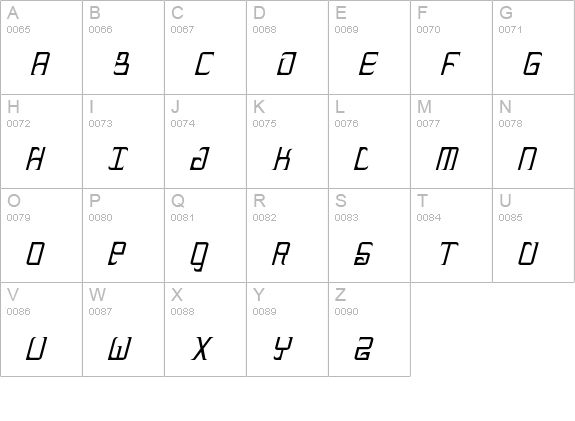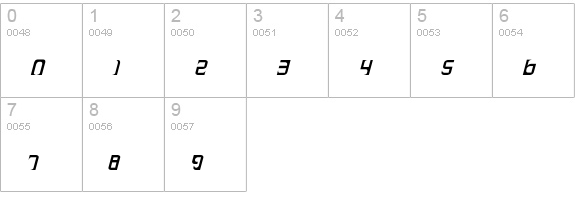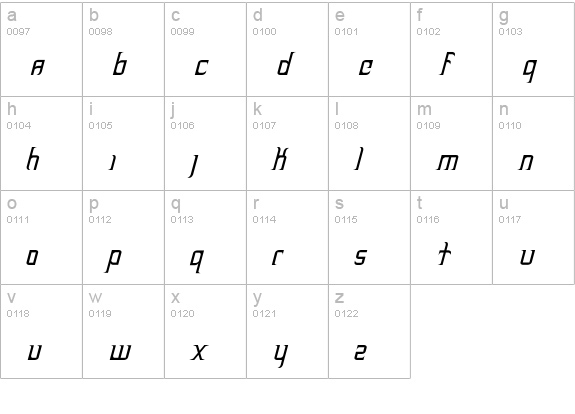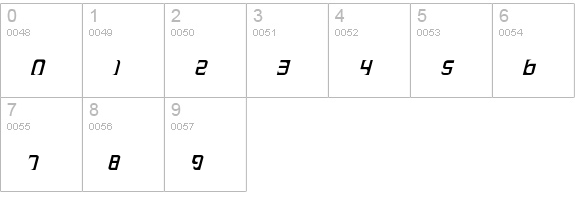
Heckler-RegularItalic Font Details
Heckler-RegularItalic is a stylish and modern font that adds a touch of elegance to any design. With its slanted and italicized letterforms, this typeface exudes a sense of sophistication and creativity. Whether used for headings, logos, or body text, Heckler-RegularItalic is sure to make a statement. What sets Heckler-RegularItalic apart is not just its aesthetic appeal, but also the fact that it is available as a free download. Yes, you read that right! This incredible font can be yours at no cost, making it the perfect choice for budget-conscious designers and creatives. To get your hands on Heckler-RegularItalic, simply visit FontsMarket.com, a trusted source for high-quality fonts. Once there, you can easily find and download this font, along with many other amazing options. FontsMarket.com ensures a hassle-free experience, allowing you to enhance your designs with Heckler-RegularItalic without breaking the bank. Don't miss out on this opportunity to elevate your design projects with Heckler-RegularItalic. Download it for free today and unlock a world of endless possibilities for your creative endeavors.